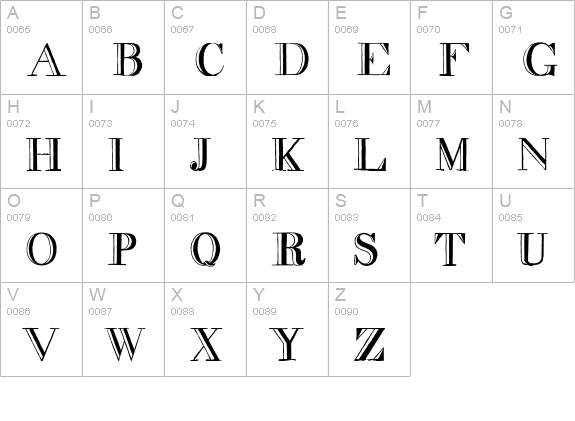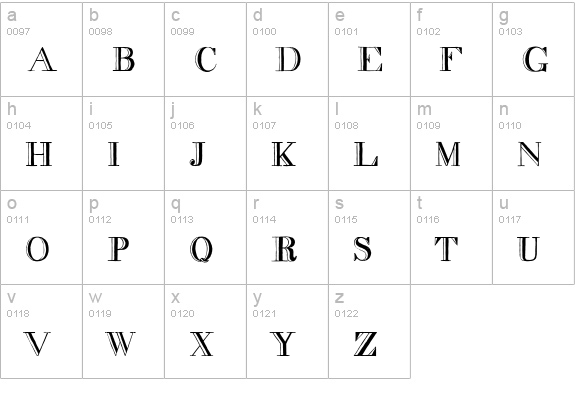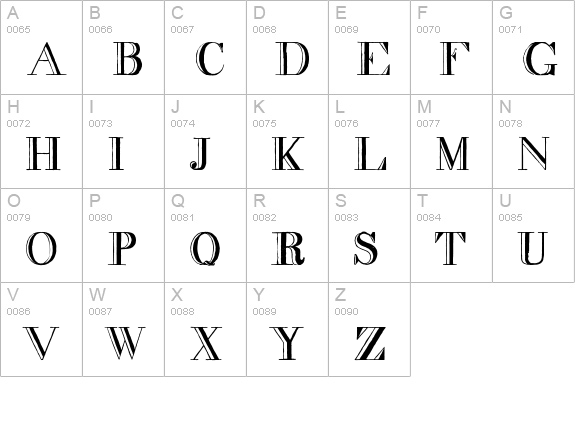
decadence condensed is a distinctive, condensed-width variant in the decadence typeface family \xE2\x80\x94 well suited to design and typography projects.
Decadence Condensed Font is a luxurious and stylish typeface that exudes elegance and sophistication. With its sleek lines and unique design, this font is perfect for adding a touch of class to any project. Whether you're creating invitations, logos, or branding materials, Decadence Condensed Font will make your text stand out. Best of all, Decadence Condensed Font is available for free download at FontsMarket.com. This means you can easily access this stunning font and incorporate it into your work without any cost. Don't miss out on the opportunity to elevate your designs with the exquisite Decadence Condensed Font - download it today and add a touch of decadence to your projects.